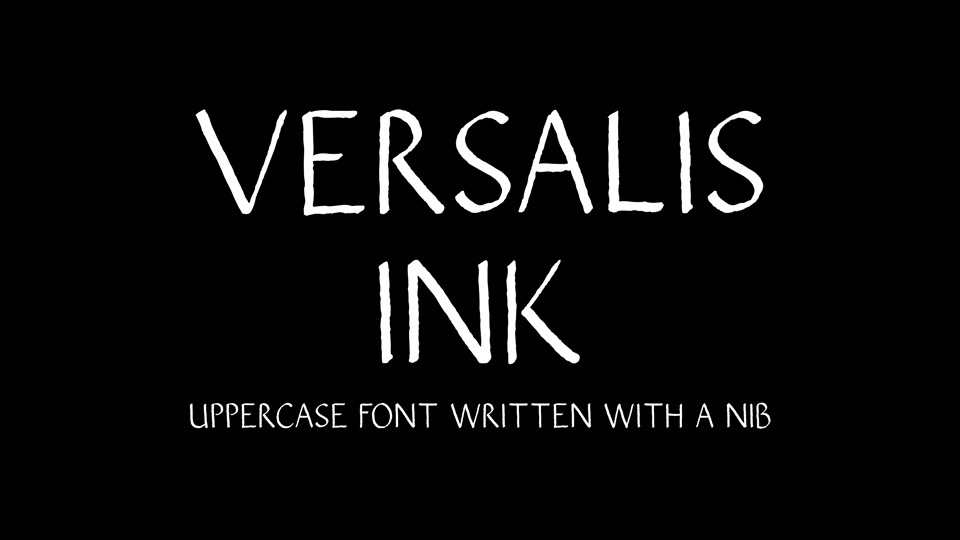
Download Versalis Ink font, a simple all caps typeface handwritten with a nib. It’s suitable for short text blocks, letters and cards, weddings and other craft designs.
Designer: Union Sozialer Einrichtungen gGmbH